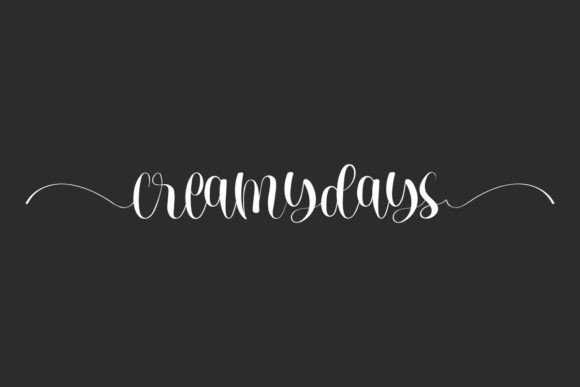
Discovering the Perfect Script for Your Next Design Project
Have you ever been browsing through a beautifully designed brochure or a trendy café’s menu and thought to yourself, “I wish I could create something that looks this stunning”? That’s exactly where the magic of typography comes in. A well-chosen font can make all the difference in elevating your design from ordinary to extraordinary.
For designers looking to add a touch of elegance to their next project, the Creamydays Font is a game-changer. This lovely calligraphy script font is designed to bring natural lines that flow with the tails, making it both beautiful and easy to read. With its versatility and wide range of applications, it’s the perfect choice for fashion, beauty, and more.
Creamydays Font Key Features
- Font Family: Creamydays – a unique, handwritten font designed to evoke a sense of warmth and elegance.
- Font Size: 4,000+ glyphs, including uppercase and lowercase letters, numbers, punctuation, and special characters, ensuring comprehensive coverage for diverse design needs.
- Unique Characteristics: Distinctive, flowing script style with subtle variations in stroke width and letterform shapes, creating a dynamic and expressive feel.
Designer Review: Creamydays Font
Overall, I think the Creamydays Font has a lot of potential, but it also has some limitations that hold it back from being a truly great font. ✨
- Unique design: Creamydays has a distinctive, playful feel that sets it apart from more common fonts.
- Good for titles and headings: The font’s bold lines and rounded edges make it well-suited for use in titles and headings.
- Can be used for creative projects: The font’s quirky, whimsical feel makes it a good fit for projects that require a creative, artistic touch.
- Difficult to read at small sizes: The font’s bold lines and rounded edges can make it hard to read at small sizes, which may limit its use in body text.
- Lacks consistency: Some of the font’s letterforms seem inconsistent with the rest of the design, which can make it look a bit uneven.
- Not ideal for formal projects: The font’s playful feel may not be suitable for more formal projects, such as business reports or academic papers.
Overall, I think the Creamydays Font is a good choice for creative projects that require a unique, playful feel. However, it may not be the best choice for projects that require a more formal or professional tone.
The Creamydays Font is perfect for creating elegant and sophisticated designs. Use it for:
- How to use: Use the Creamydays Font as the main headline font for the wedding invitation, pairing it with a elegant script font for the names and a clean sans-serif font for the details.
- Tips for combining with other design elements: Add a watercolor texture to the background, and use floral patterns and soft pastel colors to give the invitation a whimsical and romantic feel.
- How to use: Use the Creamydays Font as the title font for the journal, pairing it with a distressed font for the headings and a handwritten font for the notes.
- Tips for combining with other design elements: Add a vintage map or a distressed texture to the background, and use a combination of black and white and sepia-toned photographs to give the journal a nostalgic feel.
Exploring the Creamydays Font
Create a dreamy and romantic wedding invitation design using the Creamydays Font.
Project 2: Vintage Travel Journal
Create a unique and nostalgic travel journal design using the Creamydays Font.
Project 3: Children’s Book Illustrations
Create a charming and playful children’s book illustration design using the Creamydays Font.